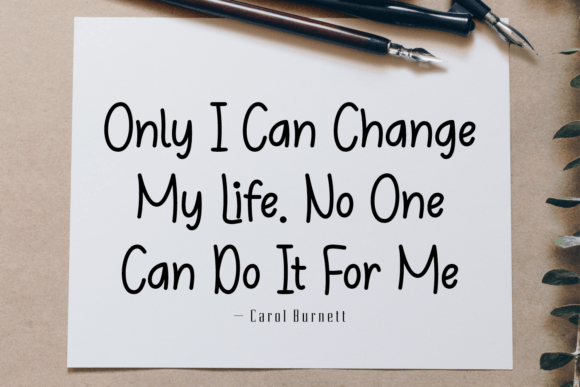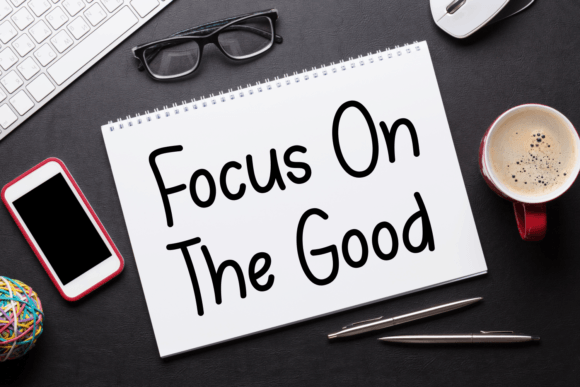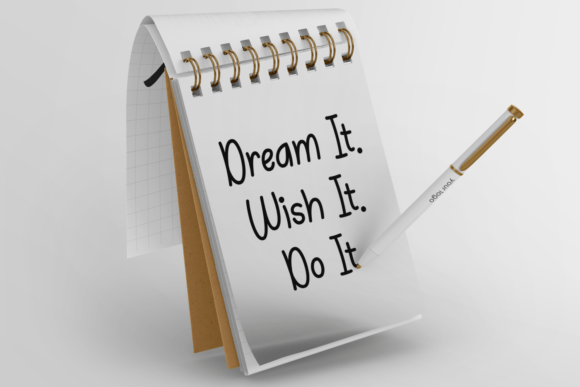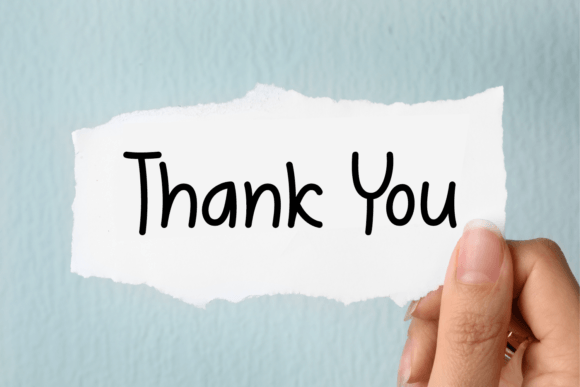
Introduction to Notes Diary Font
Have you ever sat down with a blank page, a cup of coffee, and a dash of creativity, only to be met with the daunting task of choosing the perfect font to set the tone for your design project? We’ve all been there. That’s why we’re excited to introduce you to the delightful Notes Diary Font, a free download that’s sure to add a playful touch to your next creative endeavor.
As designers, we’re always on the lookout for high-quality design resources that can elevate our work and bring a personal touch to our projects. The Notes Diary Font is a hidden gem that’s perfect for creating a personal diary feel in your notes, journals, or any design where a touch of whimsy is needed. With its transparent background and friendly style, this font is sure to bring a cheerful and approachable look to your work.
Key Features of Notes Diary Font
- High-quality, hand-drawn design for a creative project
- Includes a transparent background for easy customization
- Unique, cursive script style ideal for notes, diaries, and journals
- Perfect for digital and print projects, including invitations, cards, and more
Honest Review: Notes Diary Font
As a designer, I’m always on the lookout for high-quality design resources to enhance my creative projects. The Notes Diary Font is a free download that caught my attention, and I’m excited to share my honest review.
- Unique and elegant design aesthetic
- Transparent background option for versatile usage
The Notes Diary Font is perfect for designers working on personal or commercial projects that require a touch of sophistication. Its elegant design and high-quality files make it an excellent addition to any design resource library.
- Limited character set (may not be suitable for extensive text-based projects)
Overall, the Notes Diary Font is a great addition to any designer’s toolkit. While it may have some limitations, its unique design and high-quality files make it a valuable resource for creative projects.
Notes Diary Font
To get the most out of the Notes Diary Font, use it in combination with other design elements, such as graphics and colors. Experiment with different font sizes and styles to create a unique look. You can also use it to create a cohesive brand identity.
The Notes Diary Font is commonly used for creative projects, such as planners, journals, quotes, and presentations. It’s also great for personal projects, such as scrapbooking and card making. With its high-quality design and transparent background, it’s a versatile font that can be used in a variety of settings.
Alternatives to Notes Diary Font
Pacifico Font is a beautiful, elegant script font ideal for creative projects such as invitations, posters, and brochures. It’s a high-quality design resource perfect for designers looking for a unique and sophisticated look. Pacifico Font is free to download and can be used for both personal and commercial projects.
Compared to Notes Diary Font, Pacifico Font has a more refined and polished look, making it suitable for formal and professional designs. However, Pacifico Font lacks the handwritten feel of Notes Diary Font.
Great Vibes Font is a modern, cursive font perfect for creative projects such as logos, branding, and packaging design. It’s a high-quality design resource that offers a unique and eye-catching look. Great Vibes Font is free to download and can be used for both personal and commercial projects.
Compared to Notes Diary Font, Great Vibes Font has a more playful and energetic feel, making it suitable for casual and creative designs. However, Great Vibes Font lacks the handwritten feel of Notes Diary Font.